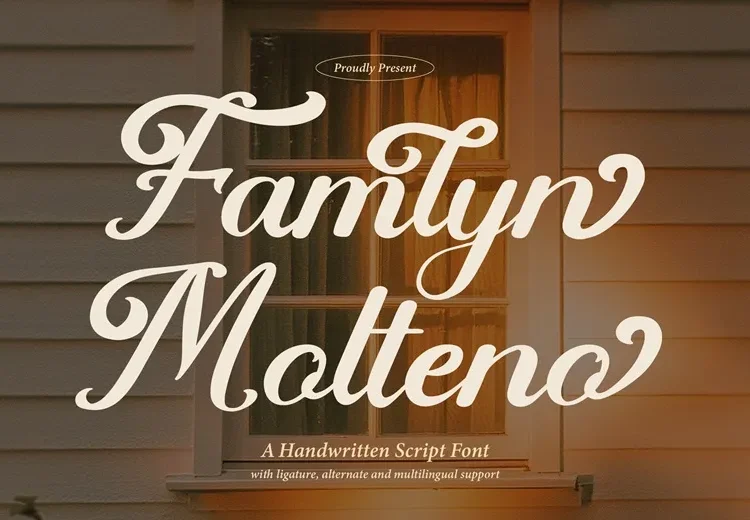
Famlyn Molteno Font
Introducing Famlyn Molteno, a stunning handwritten script font that captures the essence of elegance with its smooth and fluid letterforms. Designed to evoke a personal touch, this font has a beautiful, intimate quality that makes it perfect for a wide range of creative projects. Whether you’re crafting heartfelt invitations, designing charming greeting cards, or creating unique logos, Famlyn Molteno adds a distinctive artistic flair.
The beauty of Famlyn Molteno lies in its carefully crafted strokes that mimic the natural flow of handwriting. Each letter seamlessly connects, resulting in an organic feel that enhances the emotional impact of your designs. Its elegant curves and sophisticated appearance make it an excellent choice for both personal and professional projects, ensuring that your work stands out with style and grace.
Ideal for use in both print and digital media, Famlyn Molteno is versatile enough to fit various design contexts. From wedding stationery to branding and marketing materials, this font brings warmth and authenticity to your typography, making every word resonate.